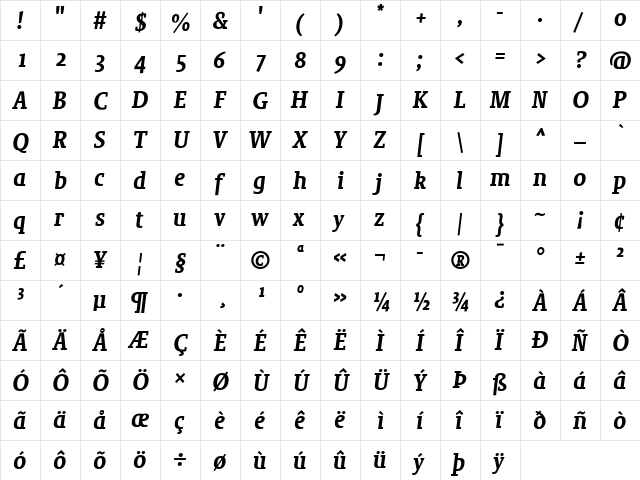
Sheriff Bold
Design Context for Sheriff Typeface
Sheriff takes a measured approach to typography — its balanced proportions and neutral character make it a reliable workhorse for both digital and print work. Its bold stroke weight gives it real presence on the page.